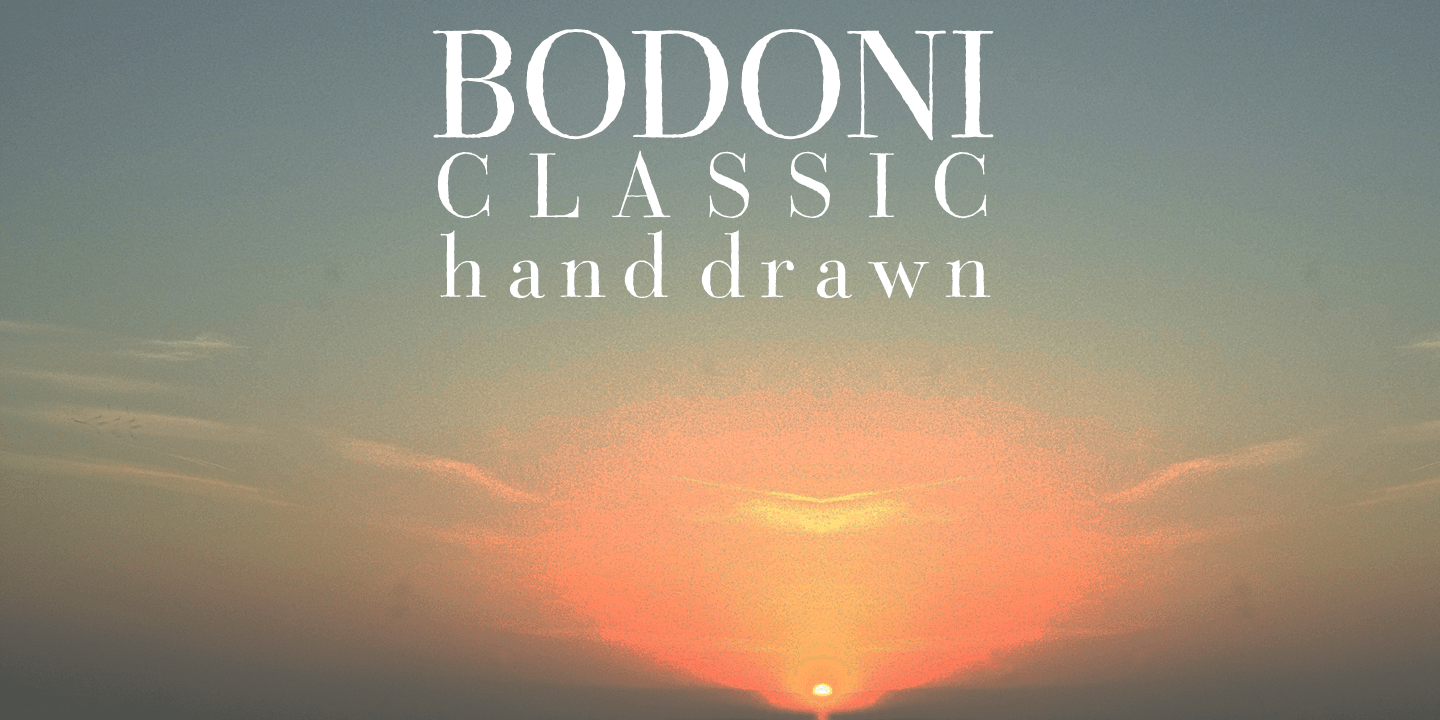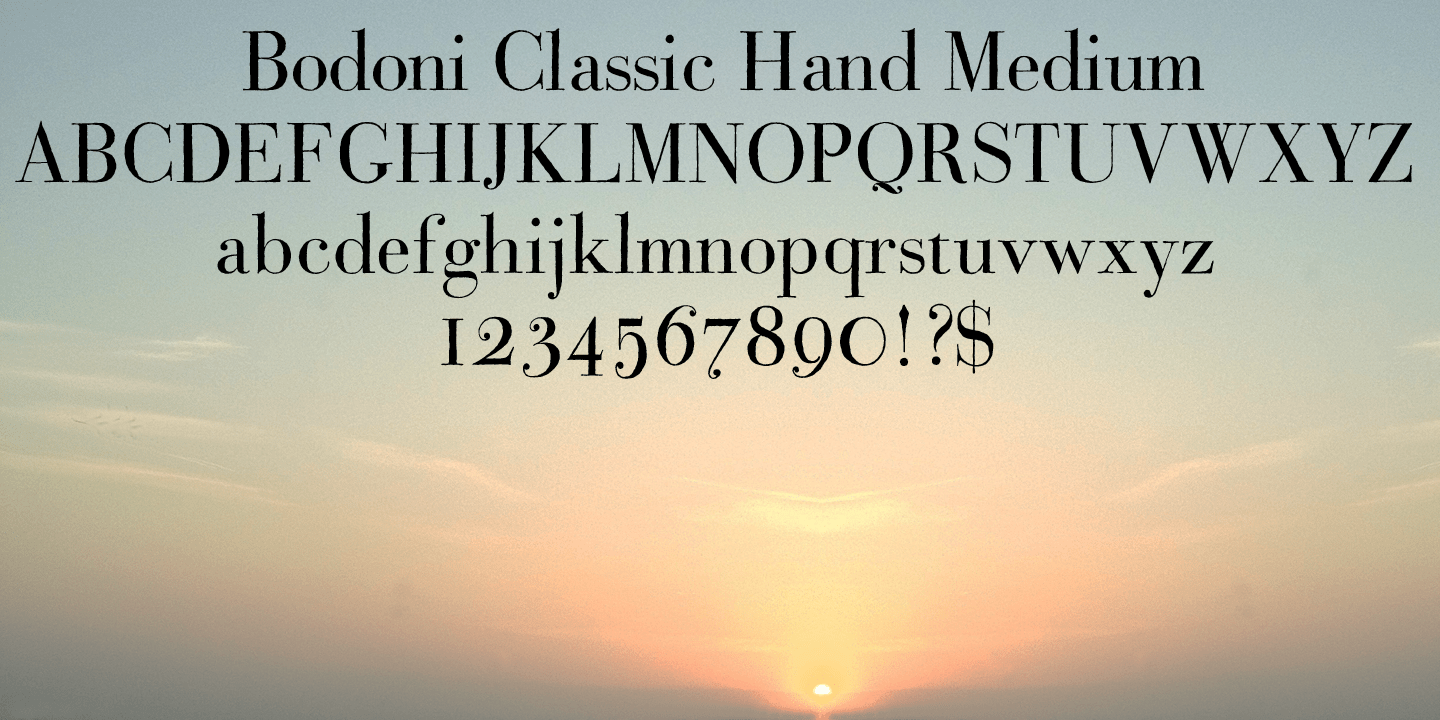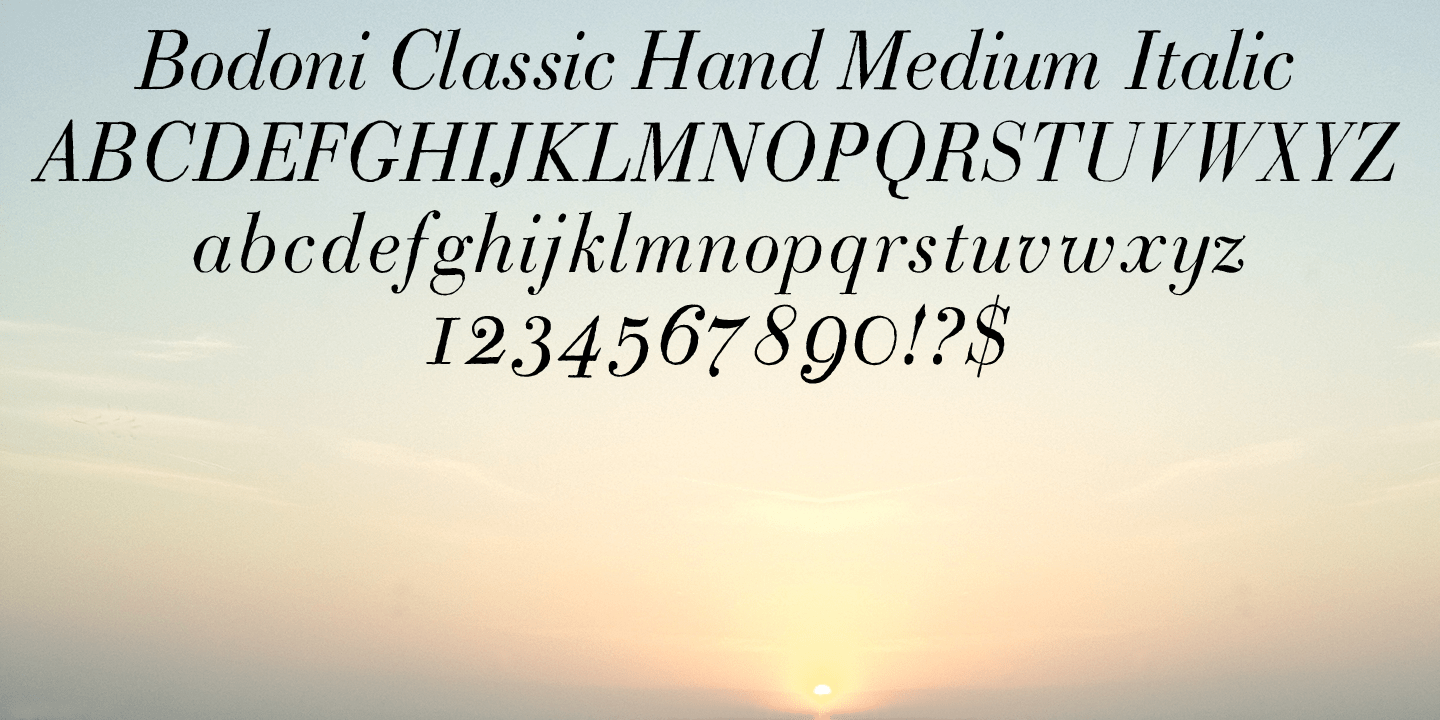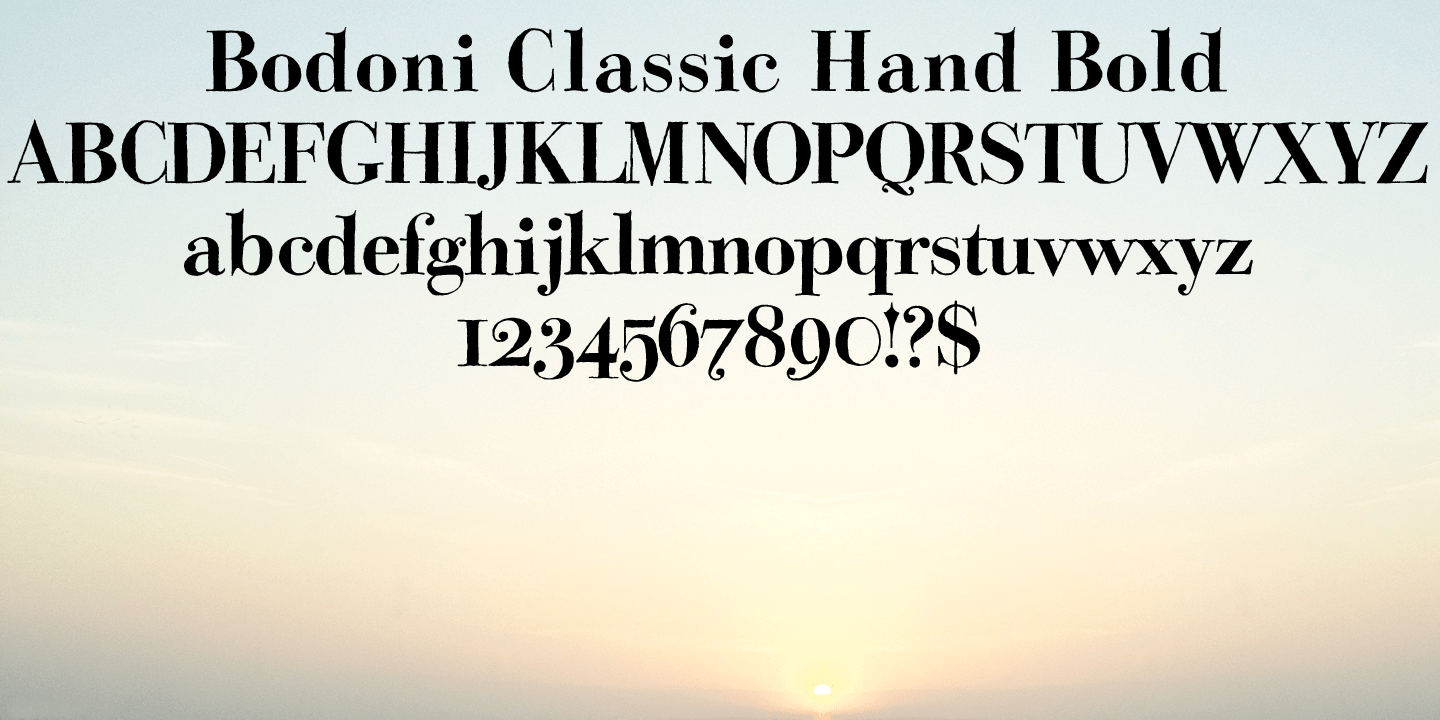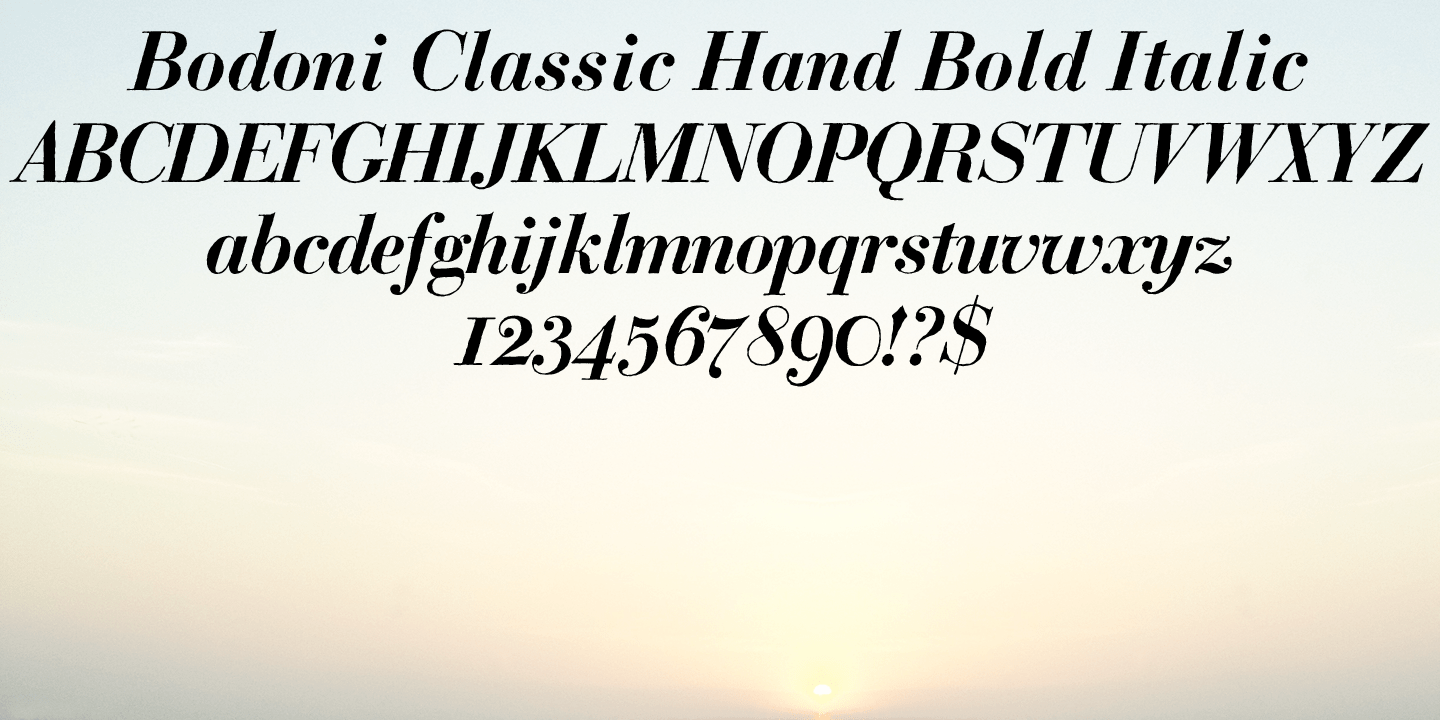
Bodoni Classic Hand
Font Family by Wiescher Design
I became interested in designing Bodoni Classic because of a lazy graphic designer at Jacques Damase publishing house. He had to change a single letter on a bookcover about J. B. BODONI. The French call him Jean Baptiste instead of Giambattista! And that unknown graphic designer just took any old ?J? from some newly cut Bodoni.
All the new Bodoni cuts have square serifs, whereas the originals had rounded serifs and slightly concave feet. The single letter ?J? with the squared off serif was for me like a road sign to start redesigning the entire Bodoni family.
That's exactly what I started in 1993 and a dozen years later I am finished. Okay, I am still adding new Bodoni Classics, but those are my personal additions.
Yours very retro, Gert Wiescher